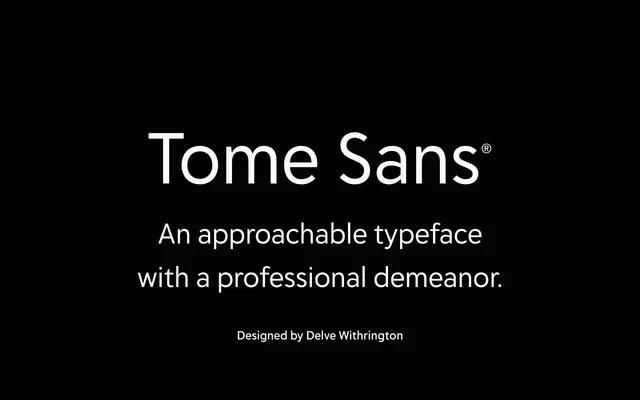
Tome Sans
A ten-weight workhorse sans with extensive Latin language coverage and a variable font option, designed for everyday professional use.
Designed by Delve Withrington, Tome Sans runs from ExtraThin to Black with matching italics across 20 static styles plus a variable font with weight and slant axes. Over 860 glyphs cover 314 languages, and OpenType features include oldstyle and tabular figures, stylistic alternates, arrows and a full set of fractions. The Indigo Design Awards 2021 recognised it with a Silver award in Typography.
Described by the foundry as combining appealing, discreet forms with versatility across multiple contexts, placing it in the humanist sans tradition with an emphasis on approachability and legibility rather than geometric rigidity.